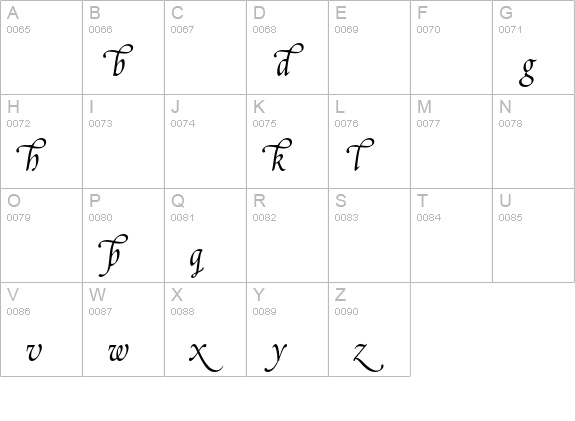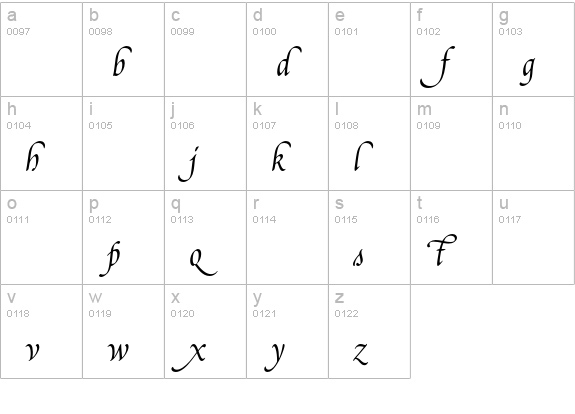
Poetica Supp Lowercase Alternates I Font Details
Poetica Supp Lowercase Alternates I font is a delightful and elegant typeface that exudes charm and sophistication. With its graceful curves and artistic flair, this font is perfect for adding a touch of poetry to any design project. The lowercase alternates bring a unique and artistic touch to the overall aesthetic, making it stand out from the crowd. Best of all, this font is free to download at FontsMarket.com, allowing you to unleash your creativity without any cost. Whether you're working on a personal project or a professional design, Poetica Supp Lowercase Alternates I font is sure to make a lasting impression with its beauty and versatility. Elevate your designs with this stunning typeface and let your creativity soar.